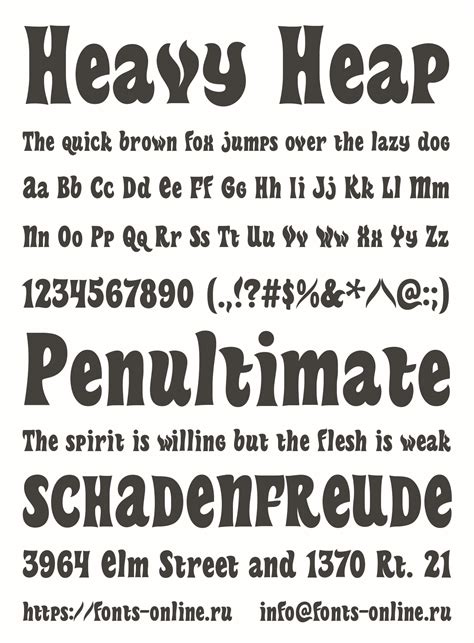
Heavy Heap uppercase
Heavy Heap Font. Web heavy heap is a groovy psychedelic typeface on fire!
Web heavy heap is a groovy psychedelic typeface on fire!
Web heavy heap is a groovy psychedelic typeface on fire! Web heavy heap is a groovy psychedelic typeface on fire!